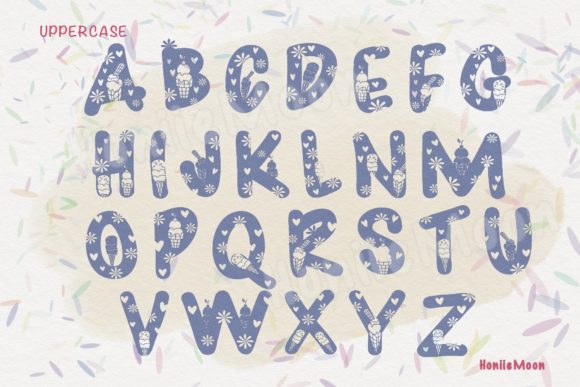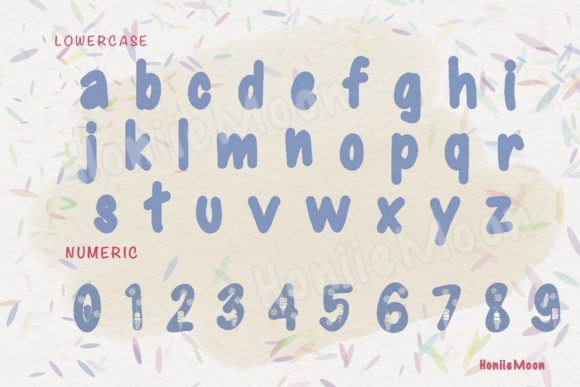
Adding a Scoop of Fun to Your Designs
Who hasn’t had one of those magical moments where creativity just flows, and the world feels like a blank canvas waiting for your brushstrokes? For designers, this moment is a sweet escape from the usual routine, where imagination knows no bounds. It’s in these fleeting moments that we discover the perfect font to elevate our creations.
Enter the Ice Cream Font, a delightful decorative font that adds a touch of whimsy to any design. With its cute and jolly vibe, this font is sure to bring a smile to the faces of your audience. Whether you’re designing a logo, a social media post, or a digital illustration, the Ice Cream Font is the perfect companion to add a playful twist. Its PUA encoding ensures seamless access to all glyphs and swashes, making it a valuable asset for designers.
Key Features of “Ice Cream Font”
- Font Family: Ice Cream Font is a sans-serif font family designed to evoke a sense of fun and playfulness.
- Unique Characteristics: The font features a unique, rounded design with subtle curves and a friendly feel, making it perfect for branding, packaging, and advertising.
Designer Review: Ice Cream Font
Overall, I was excited to dive into the “Ice Cream Font” and see what it had to offer. Here’s my honest take:
- Cute and playful design aesthetic that’s perfect for ice cream shops or sweet treats.
- Unique and whimsical style that can help brands stand out in a crowded market.
- Good legibility, especially in larger font sizes.
- May not be suitable for formal or professional branding due to its playful nature.
- Lack of language support, which may limit its use for international brands.
- May not work well in small font sizes, where the text can become difficult to read.
Overall, I think the “Ice Cream Font” is a fun and unique addition to any brand’s design arsenal. While it may have some limitations, its playful aesthetic and good legibility make it a great choice for the right project. Just be sure to consider its limitations before committing to it.
To get the most out of the Ice Cream Font, use it to add a playful touch to your designs. It’s perfect for:
- Food-related designs
- Children’s birthday invitations
- Summer-themed designs
The Ice Cream Font is commonly used for:
- Ice cream shop logos
- Food truck branding
- Summer-themed social media graphics
Alternatives to “Ice Cream Font” for Designers
Cream Soda is a cursive script font that can be used to add a touch of whimsy and playfulness to designs. It’s ideal for use in titles, headings, and other text elements where a handwritten feel is desired. Compared to Ice Cream Font, Cream Soda has a more subtle and elegant appearance, making it suitable for a wider range of design projects.
Buttercream
Buttercream is a sans-serif font that mimics the look of hand-painted letters. It’s perfect for use in designs where a fun and casual tone is needed, such as in children’s products, food packaging, or social media graphics. Compared to Ice Cream Font, Buttercream has a more modern and sleek appearance, making it a great alternative for designers who want a fresh and trendy look.
Sweet Script
Sweet Script is a elegant script font that’s perfect for use in designs where a sophisticated and refined tone is needed. It’s ideal for use in titles, headings, and other text elements where a high-end feel is desired. Compared to Ice Cream Font, Sweet Script has a more classic and sophisticated appearance, making it suitable for a wide range of design projects, from luxury brands to fine dining restaurants.